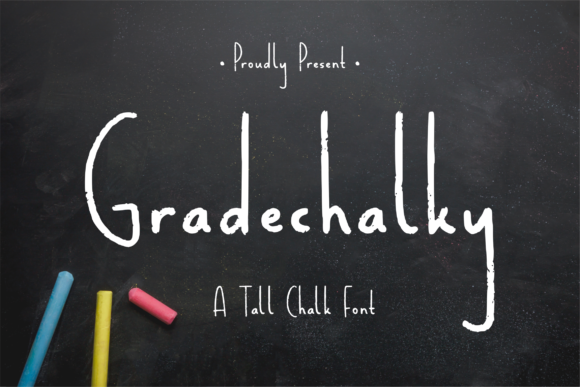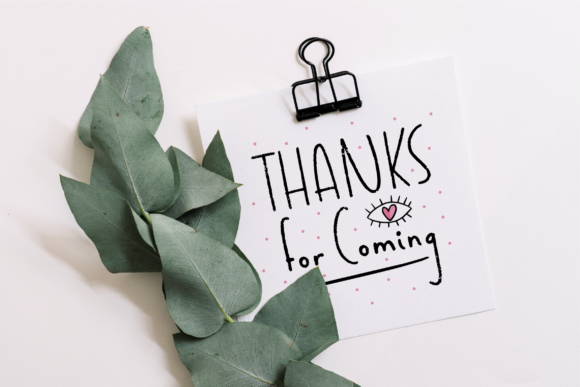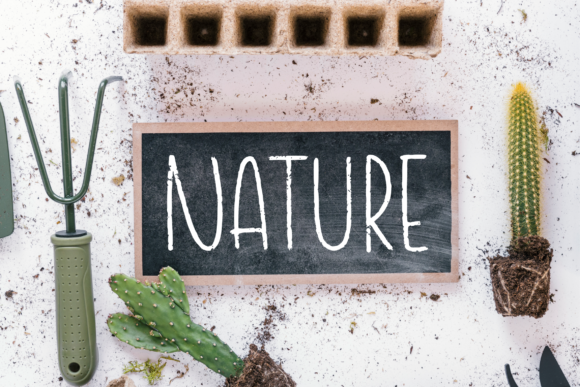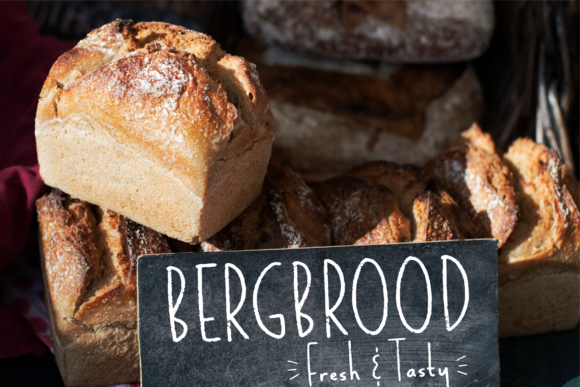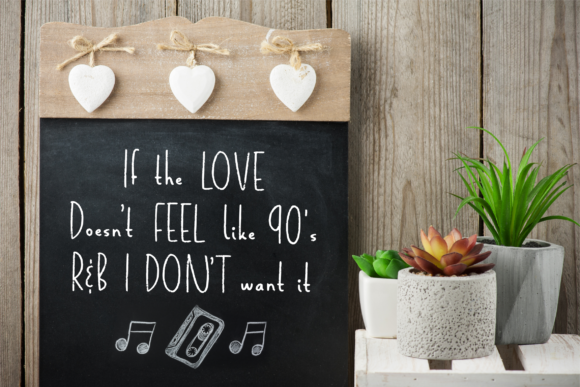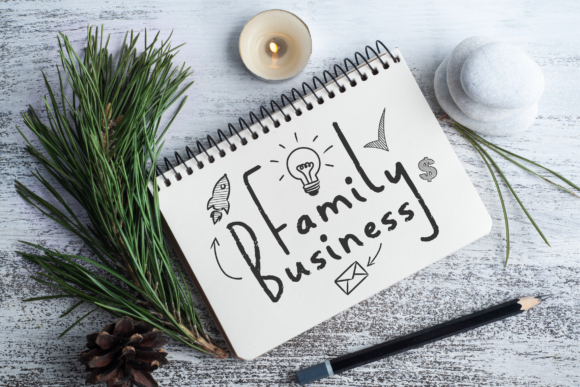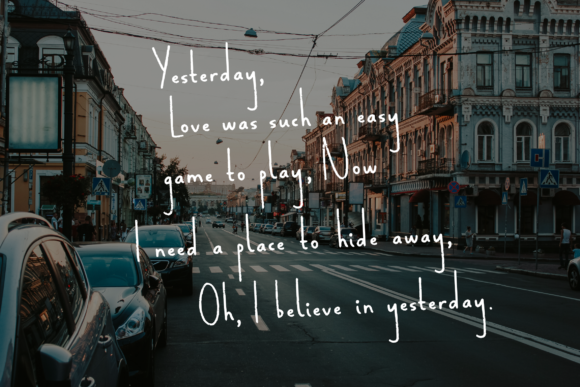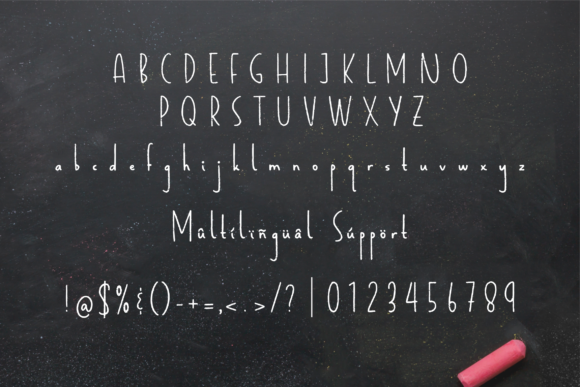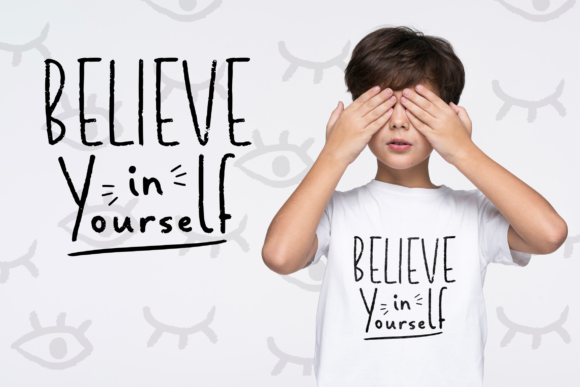
About Gradechalky Font
Gradechalky is a cute and delicate script font. No matter the topic, this font will be an incredible asset to your fonts’ library, as it has the potential to elevate any creation.